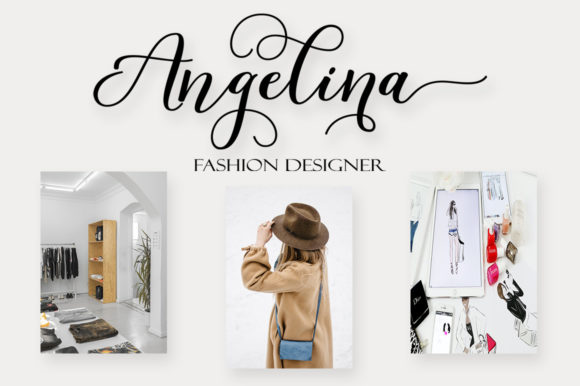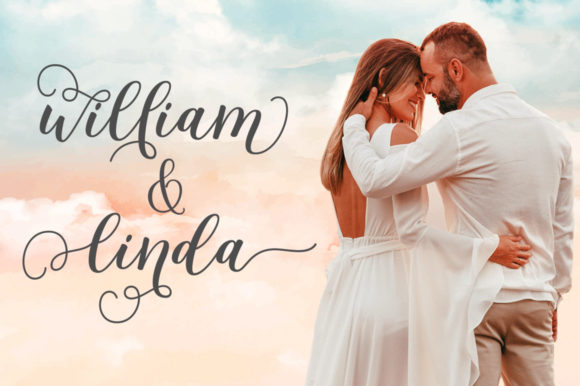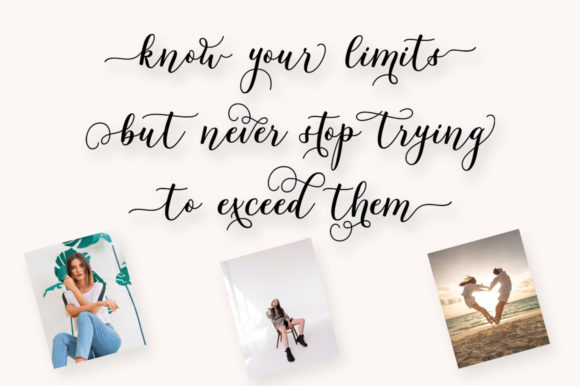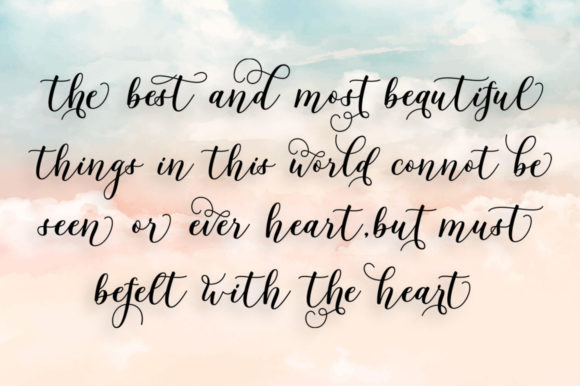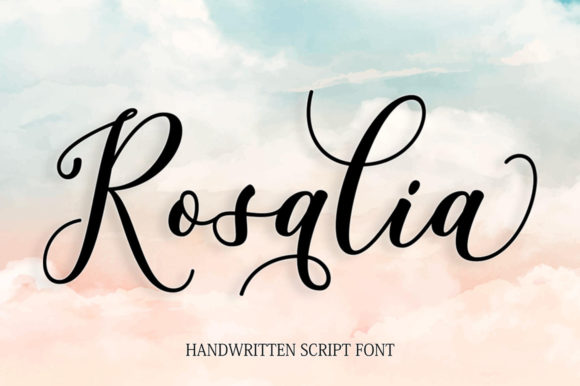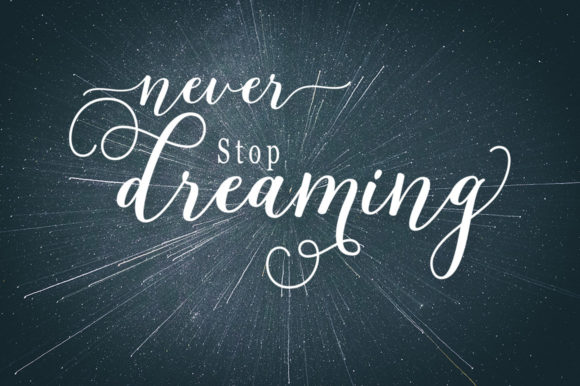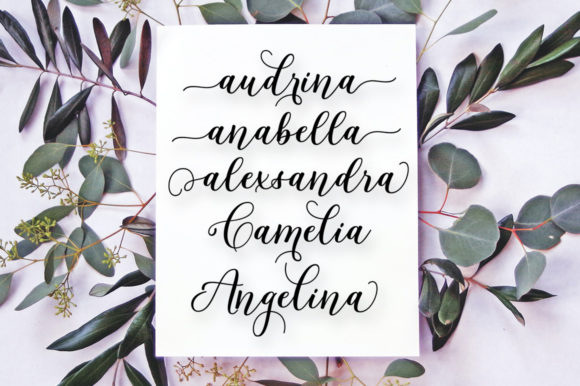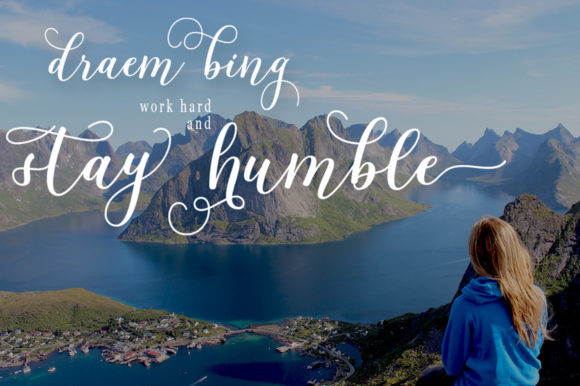
Delimora Script Font
About Delimora Script Font
Delimora is a fresh & modern script with a handmade calligraphy style, decorative characters, and dancing baseline! Very pretty on invitations such as greeting cards, branding materials, business cards, quotes, posters, and more!